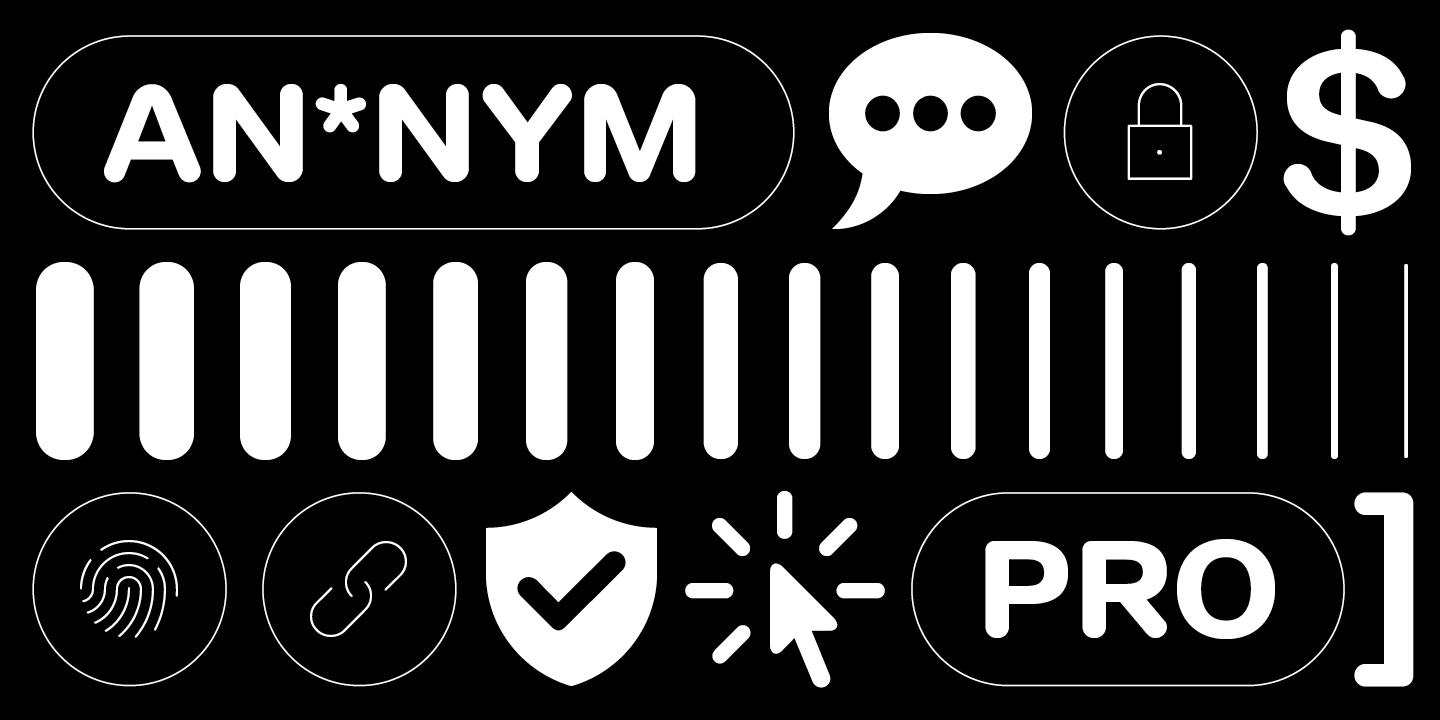
BB Anonym (Pro) Font is perfect for various applications including cybersecurity branding, tech startup logos, anonymous messaging apps, digital privacy services, underground culture posters, hacker collective graphics, encrypted software interfaces, stealth marketing campaigns, anonymous whistleblowing platforms, and mysterious event promotions.
What makes BB Anonym (Pro) Font so exciting is its powerful ability to convey secrecy and digital sophistication through typography. This enigmatic typeface features bold, angular letterforms with mysterious character variations and encrypted-style details that evoke the shadowy world of digital anonymity and cyber culture. The font's secretive character and underground aesthetic make it ideal for brands that want to convey privacy, security, and cutting-edge technology to audiences who value digital freedom, anonymity, and cybersecurity awareness.
BB Anonym (Pro) Font family includes multiple weights and styles: Light, Regular, Medium, Bold, Black, Encrypted, Glitch, Condensed, and mysteriously designed Italic variants. Each family member maintains the font's signature anonymity while offering different levels of visual impact and stylistic flexibility for diverse cybersecurity and underground applications.
The BB Anonym (Pro) Font Free Download provides designers with access to a cyber-inspired typeface that excels in technology and security markets. Whether you're creating digital privacy brand identities, designing cybersecurity marketing materials, or developing anonymous platform interfaces, this font delivers the mysterious aesthetic needed to resonate with security-conscious users. Its underground styling and encrypted essence make it particularly effective for privacy software, cybersecurity firms, and anonymous communication platforms.
Typography experts will recognize the strategic balance between mystery and functionality in BB Anonym (Pro) Font's construction. The font features precisely crafted letterforms with encrypted-style variations, optimized spacing for digital displays, and carefully balanced proportions that ensure excellent readability while maintaining its secretive character. From secure application interfaces to underground event graphics, this typeface maintains its anonymity and digital appeal across all technological contexts.
For cybersecurity web designers, BB Anonym (Pro) Font provides outstanding performance in security-themed digital environments and privacy-focused platforms. The font's technical specifications are optimized for encrypted communications while preserving the bold, mysterious edges that define its underground character. Its versatility makes it suitable for both secure messaging interfaces and anonymous digital experiences.
Creative professionals working in cybersecurity, digital privacy, anonymous platforms, and underground culture will find BB Anonym (Pro) Font to be an essential tool for projects requiring secretive visual communication. The font's ability to convey anonymity, security, and digital sophistication makes it invaluable for brands targeting privacy-conscious demographics.